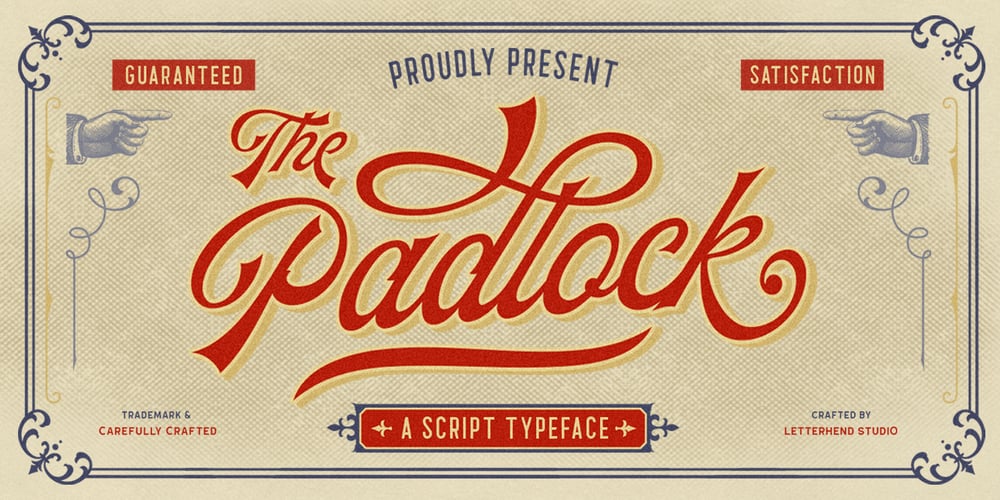
Padlock Font Family was designed by Hendry Juanda and published by Letterhend. Padlock contains 1 styles and family package options. Padlock has nostalgic feel because of its vintage style, which would match well for projects with a retro or vintage theme. The swashes make this typeface unique so you can use it to create beautiful vintage lettering quickly and easily.Padlock is idea for invitations, labels, logos, magazines, books, greeting/wedding cards, packaging, fashion, make up, stationery, novels, labels or any type of advertising purpose.Features: Uppercase & Lowercase Numbers and Punctuation Multi-Lingual Support Ligatures Alternates Swashes PUA encoded We highly recommend using a program that supports OpenType features and Glyphs panels like many of Adobe apps and Corel Draw, so you can see and access all Glyph variations.Email us at letterhend@gmail.com if you need something! Happy Designing!